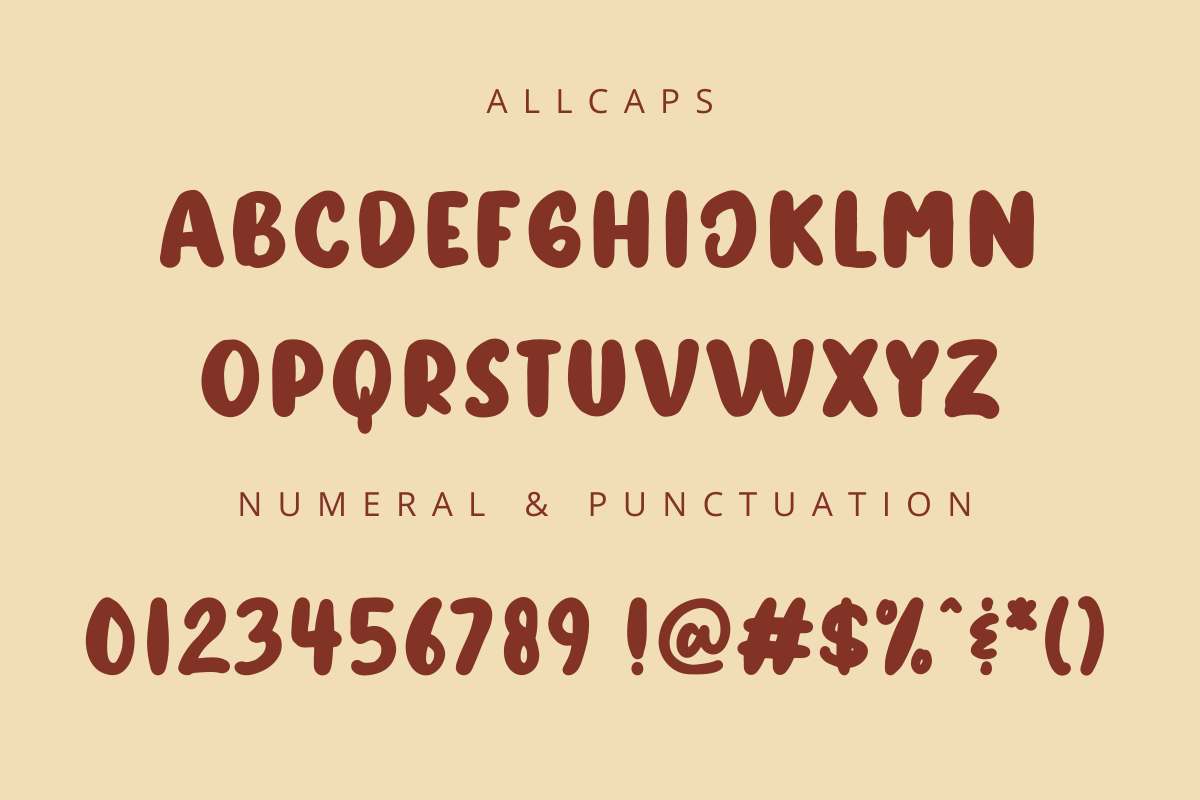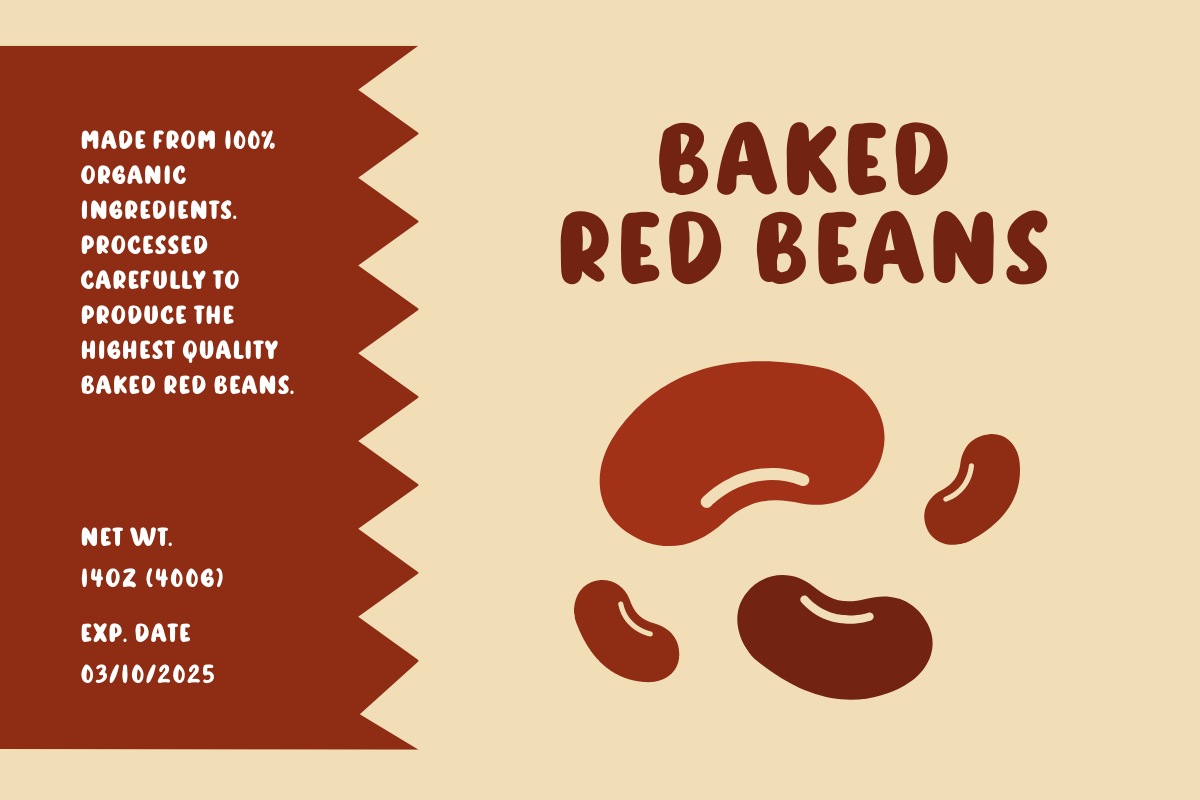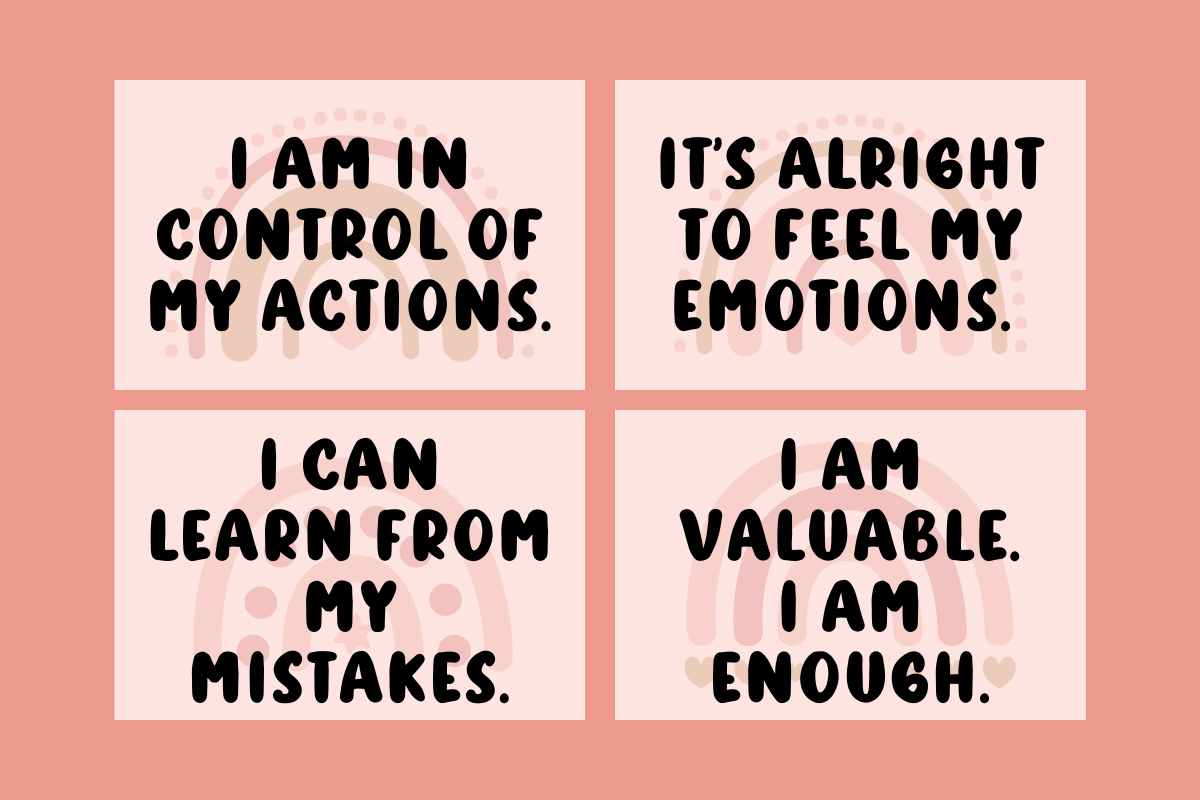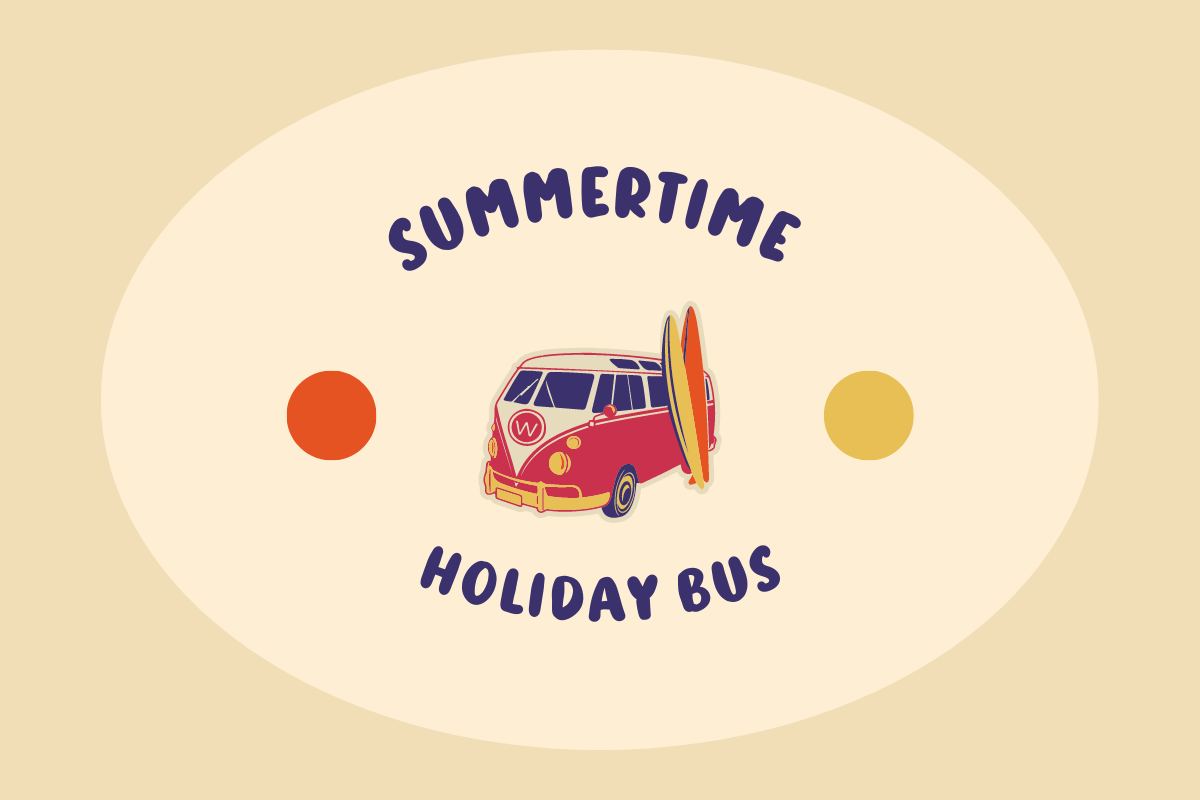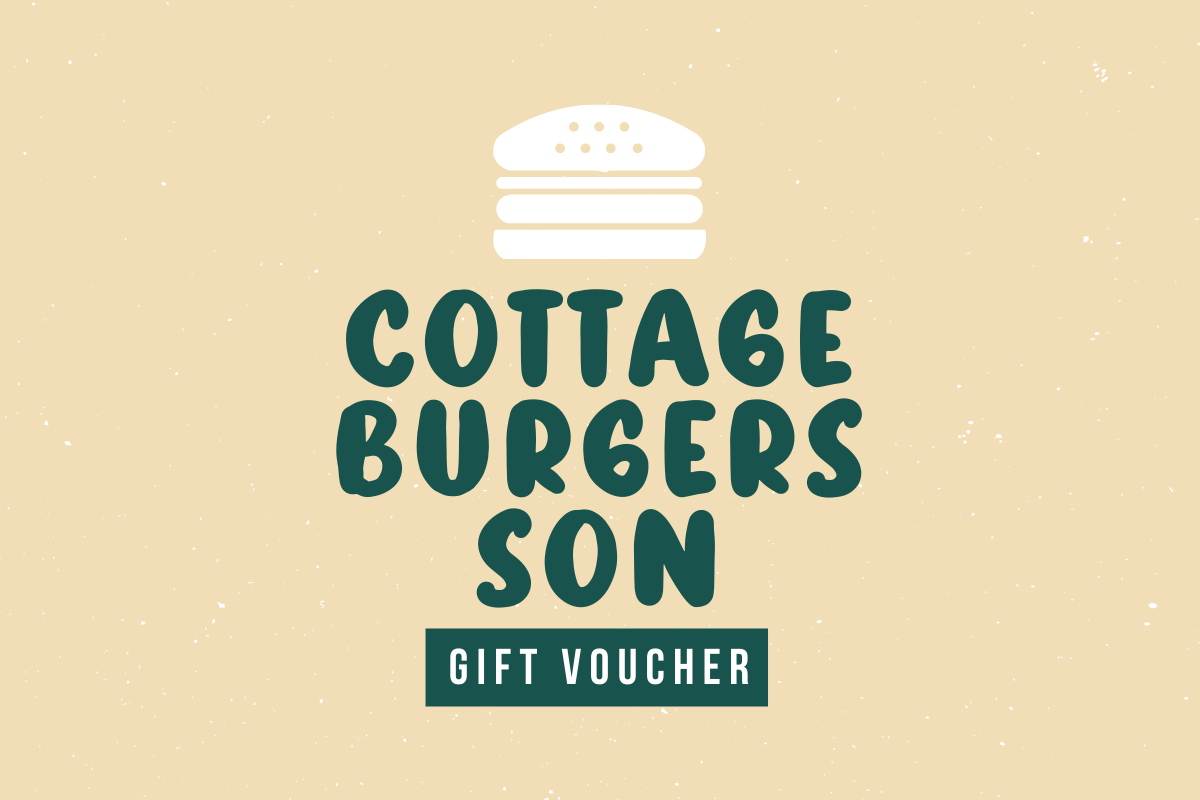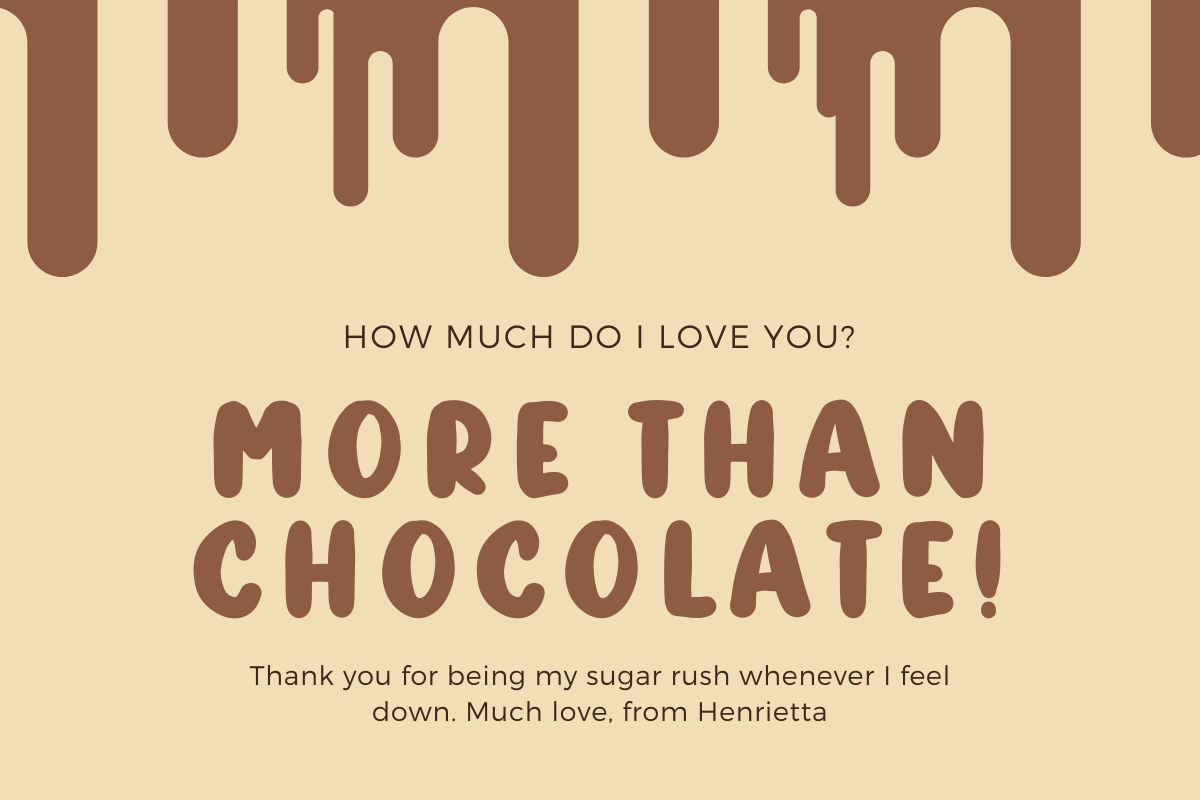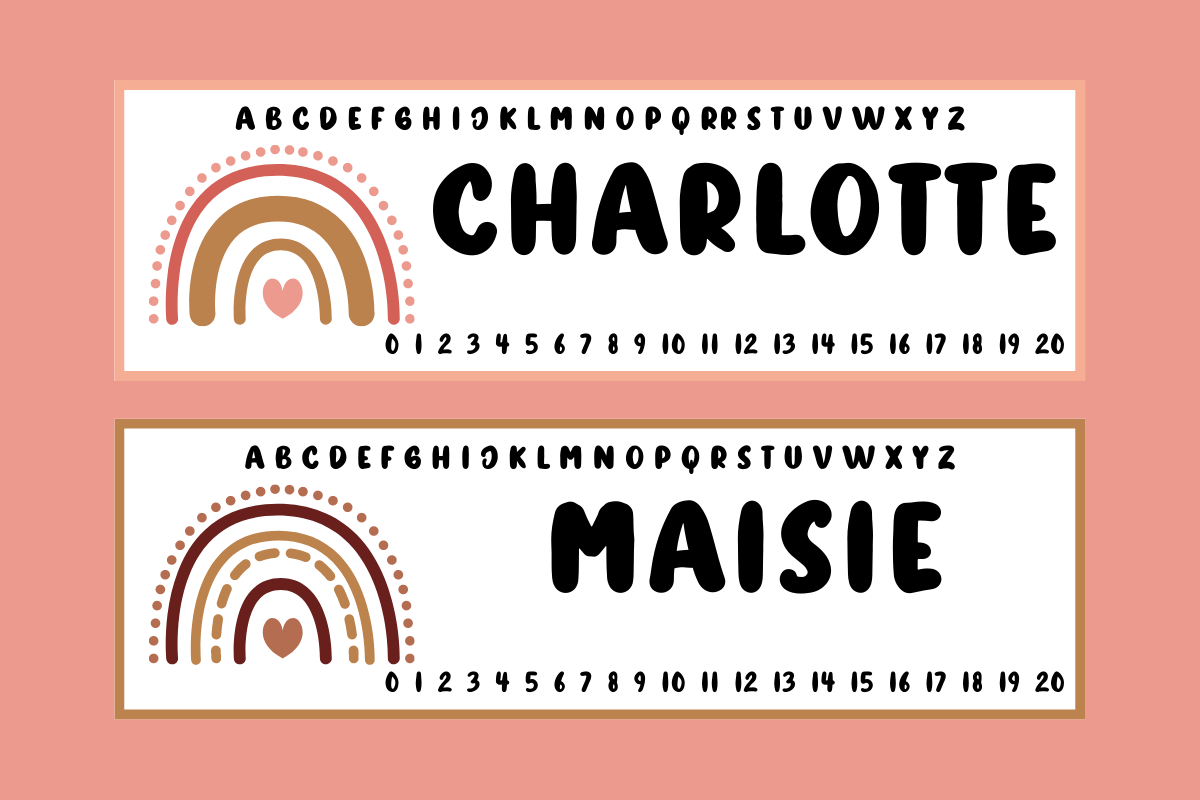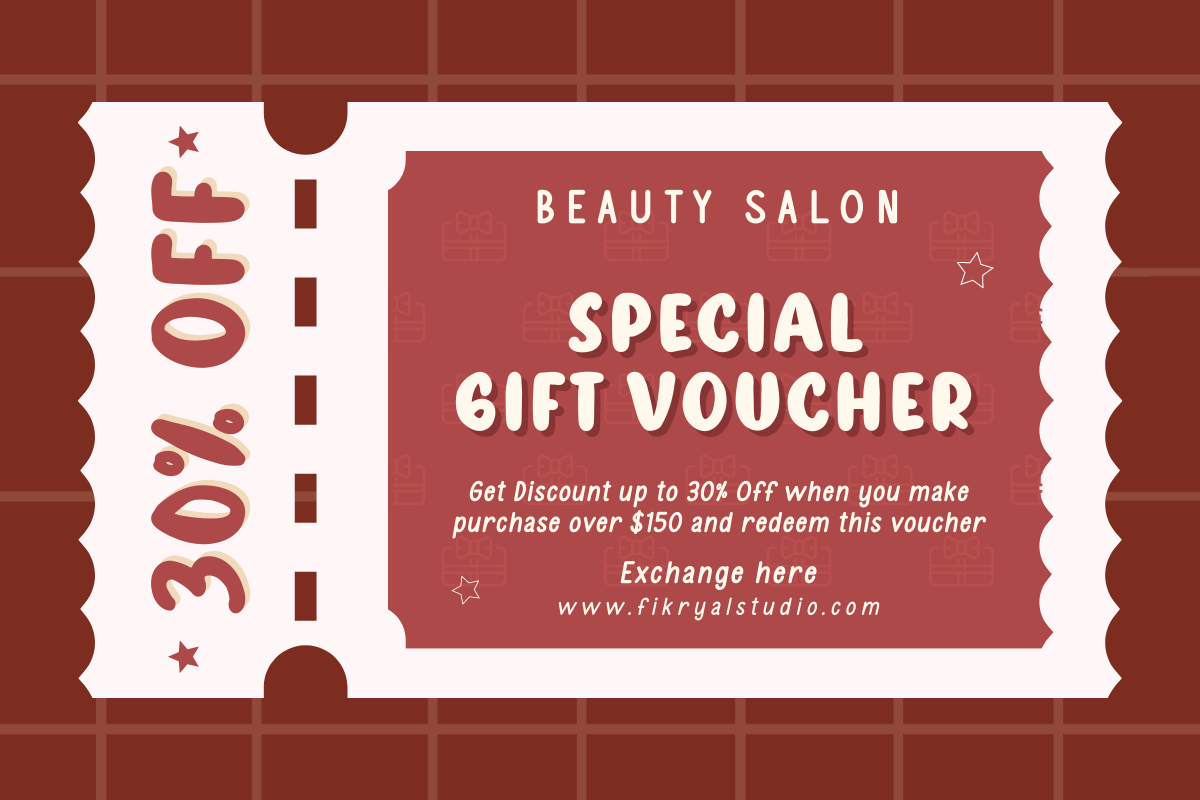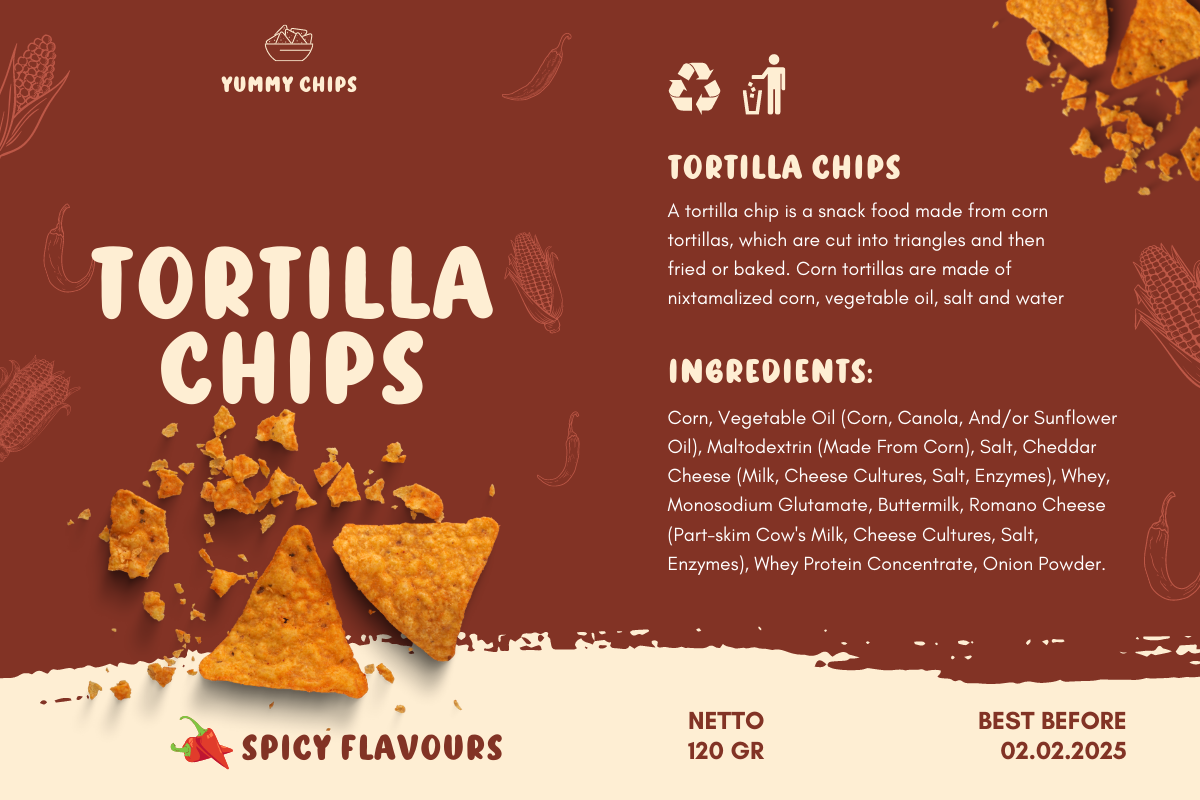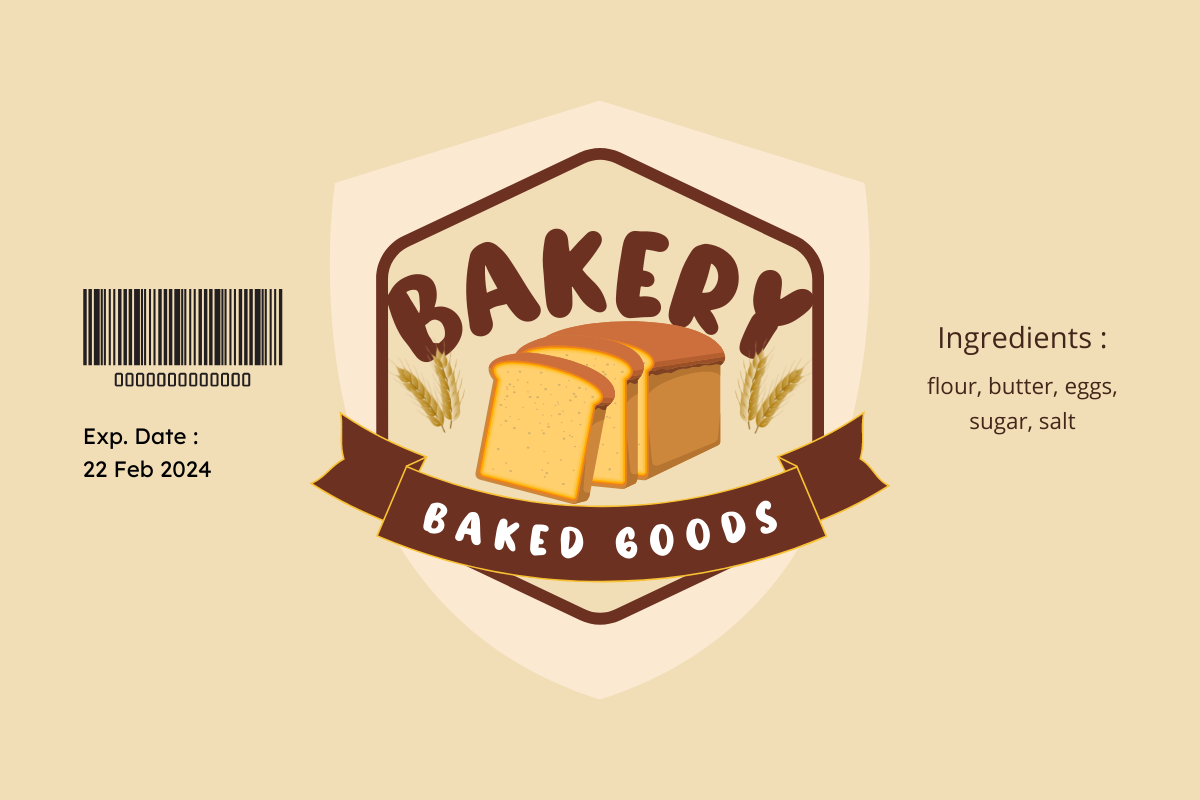
Cutest Feeling
This is my new font, it's called Cutest Feeling. This font is handwritten font. it's very suitable to be applied in your design, also it's perfect for logo, branding, title, social media post, advertisements, product packaging, product designs, label, photography, special event, web design, etc.
Cutest Feeling (Allcaps)
Numeral & Punctuation